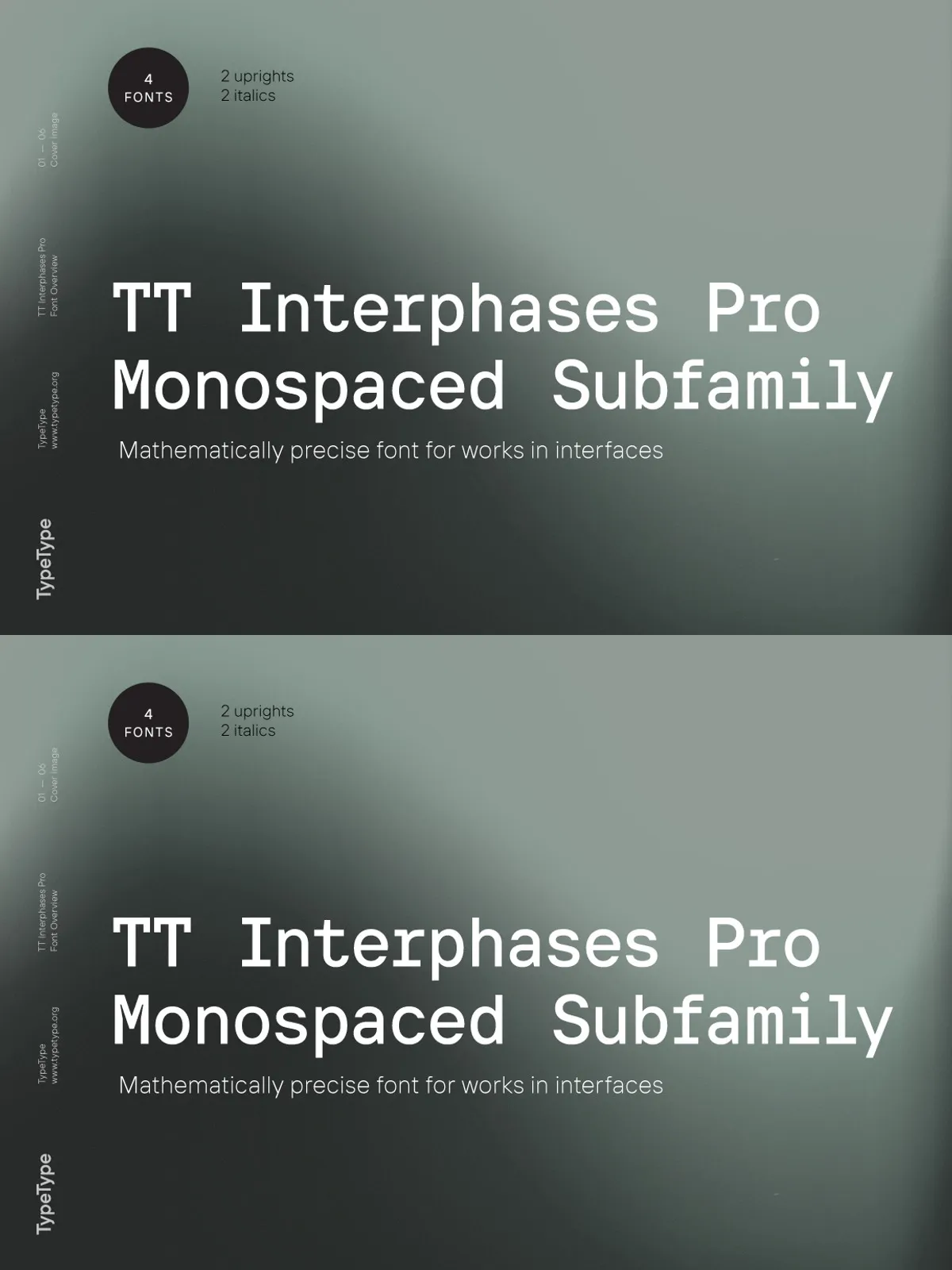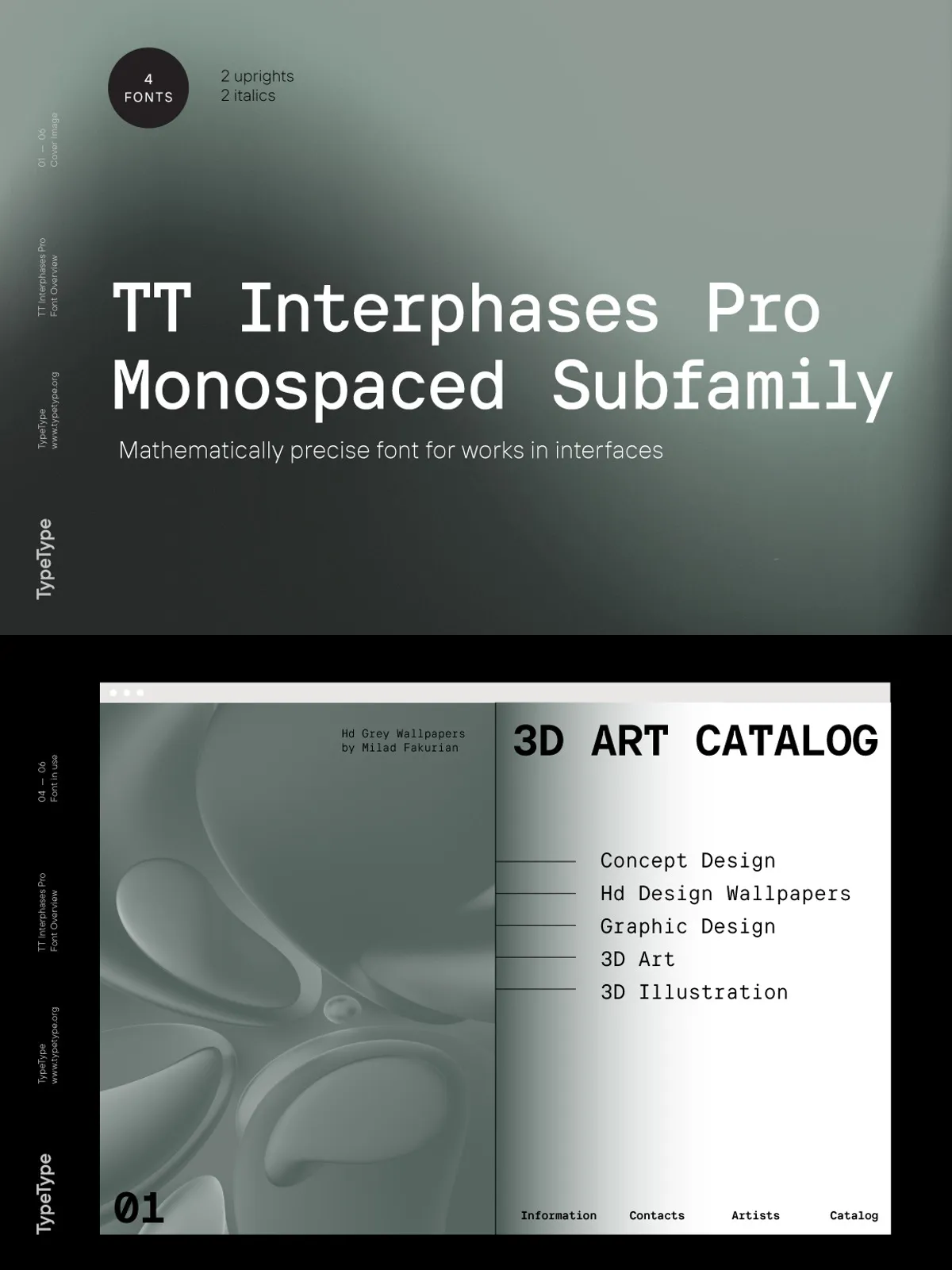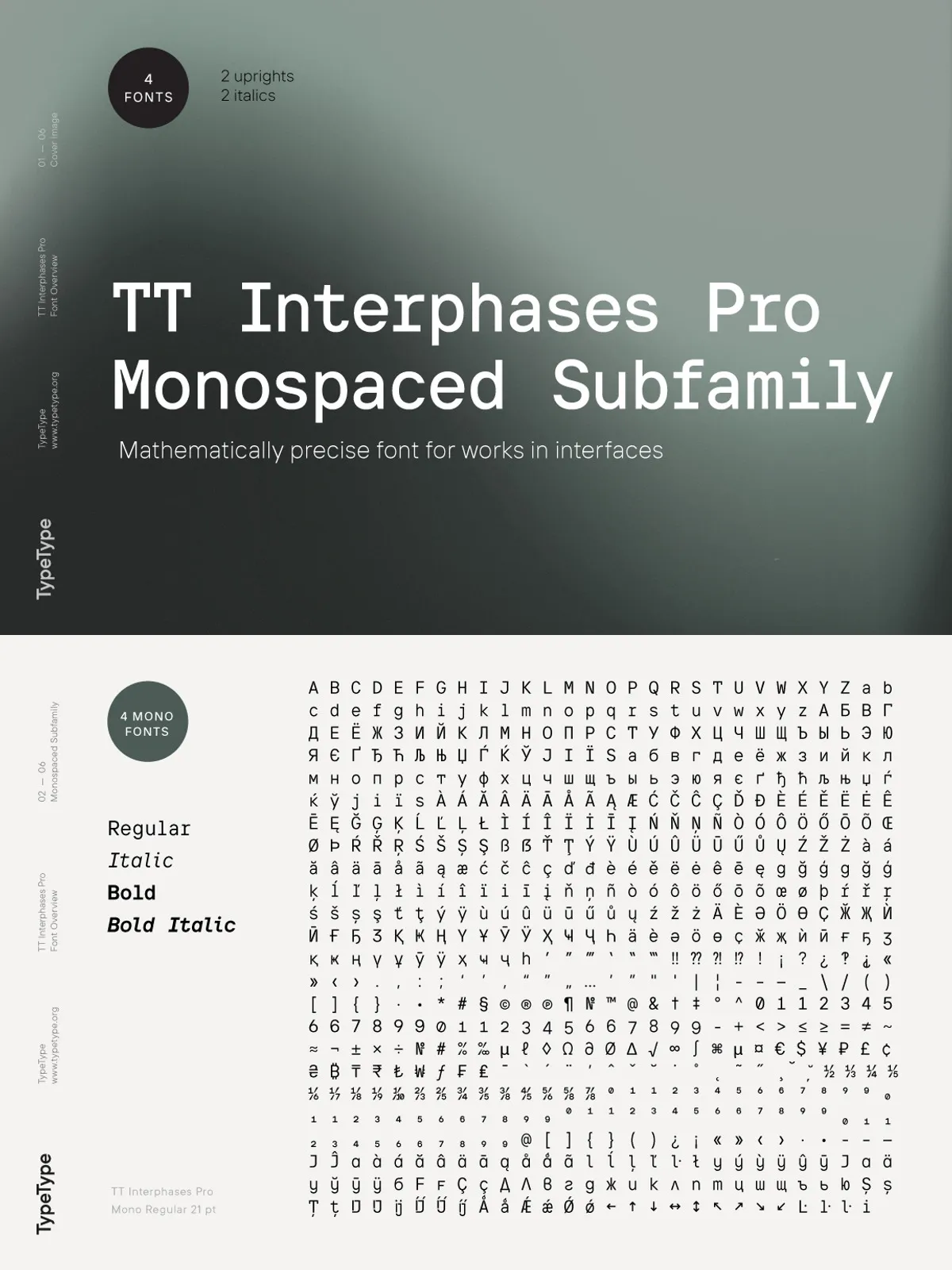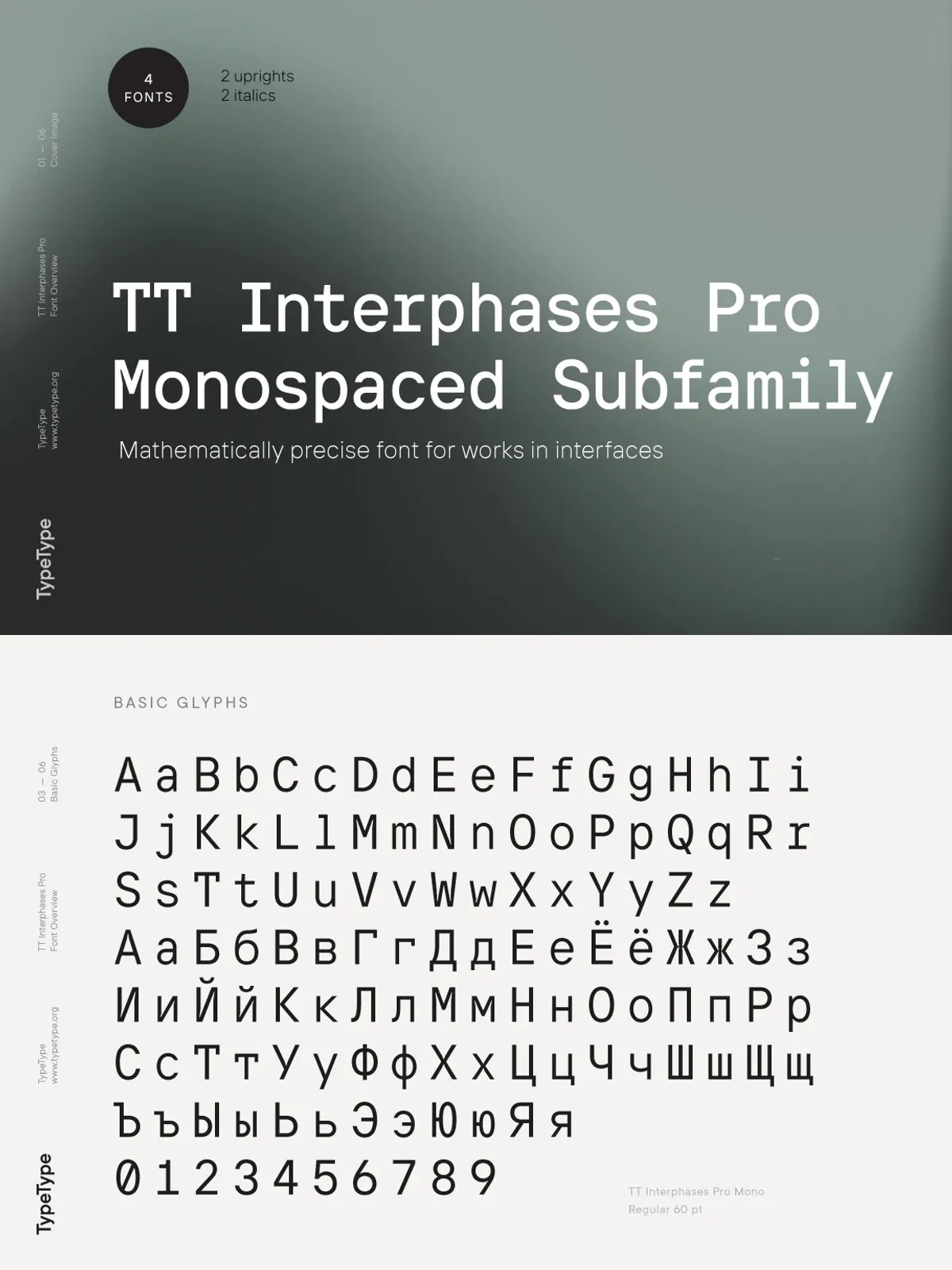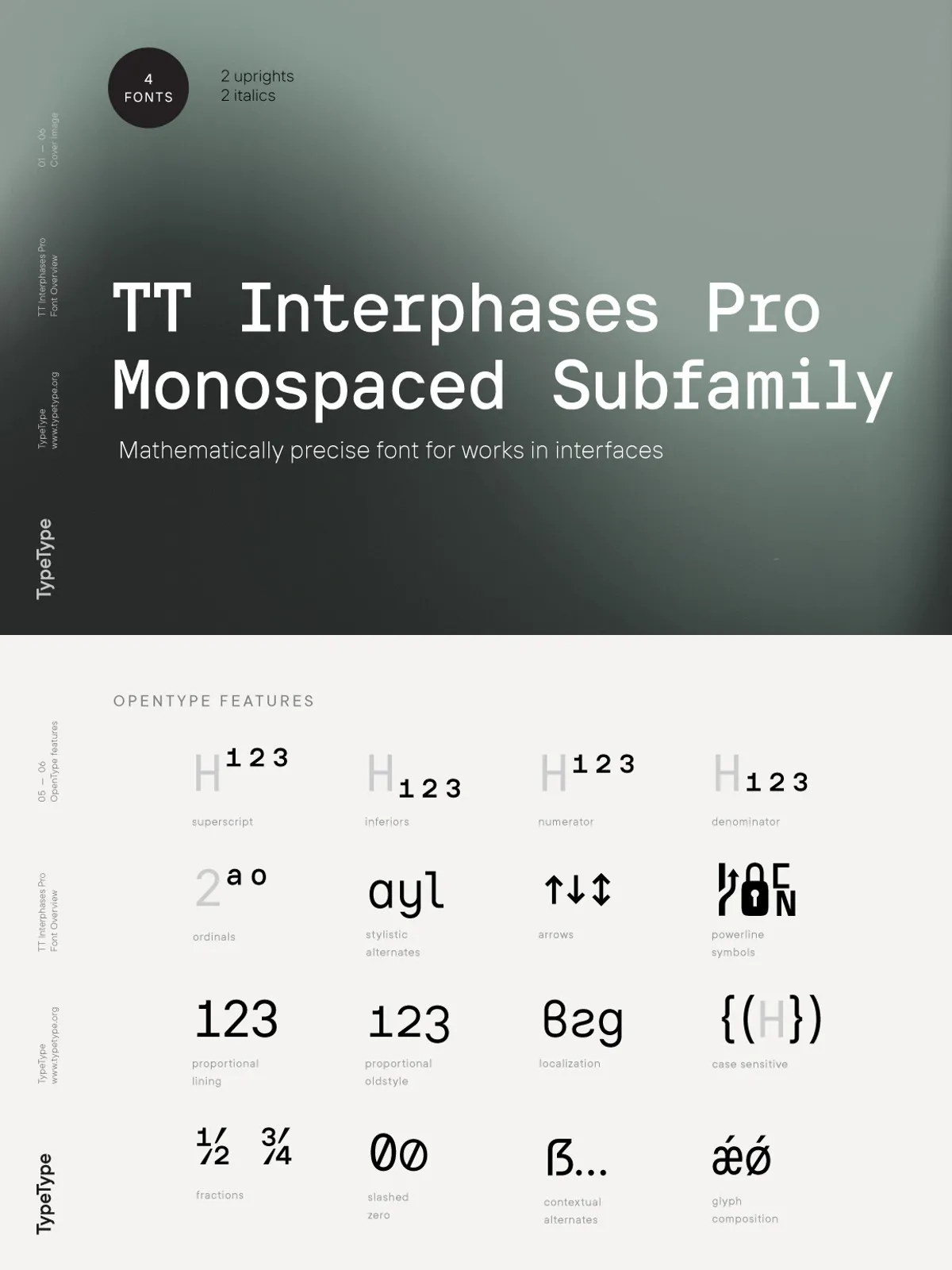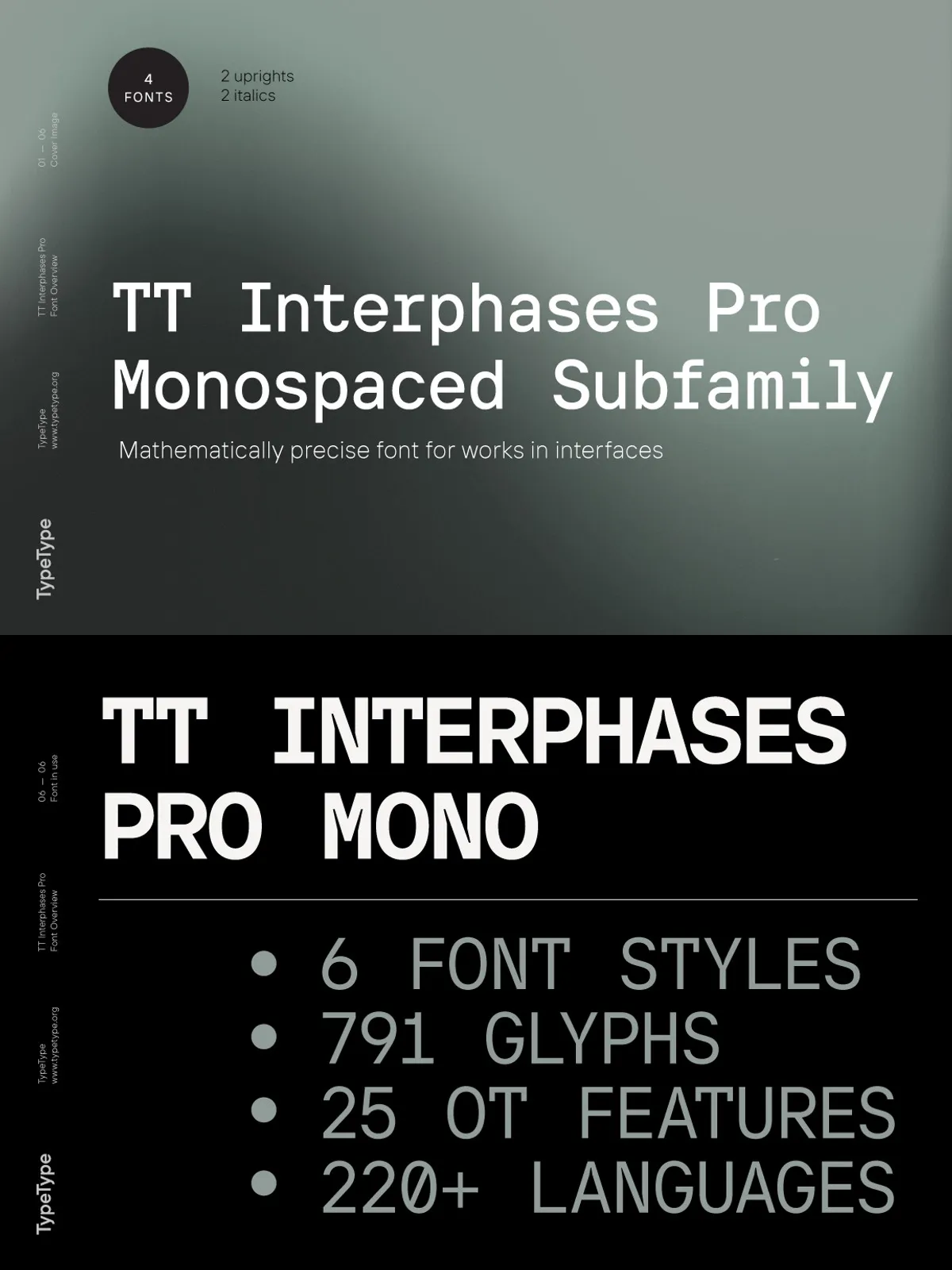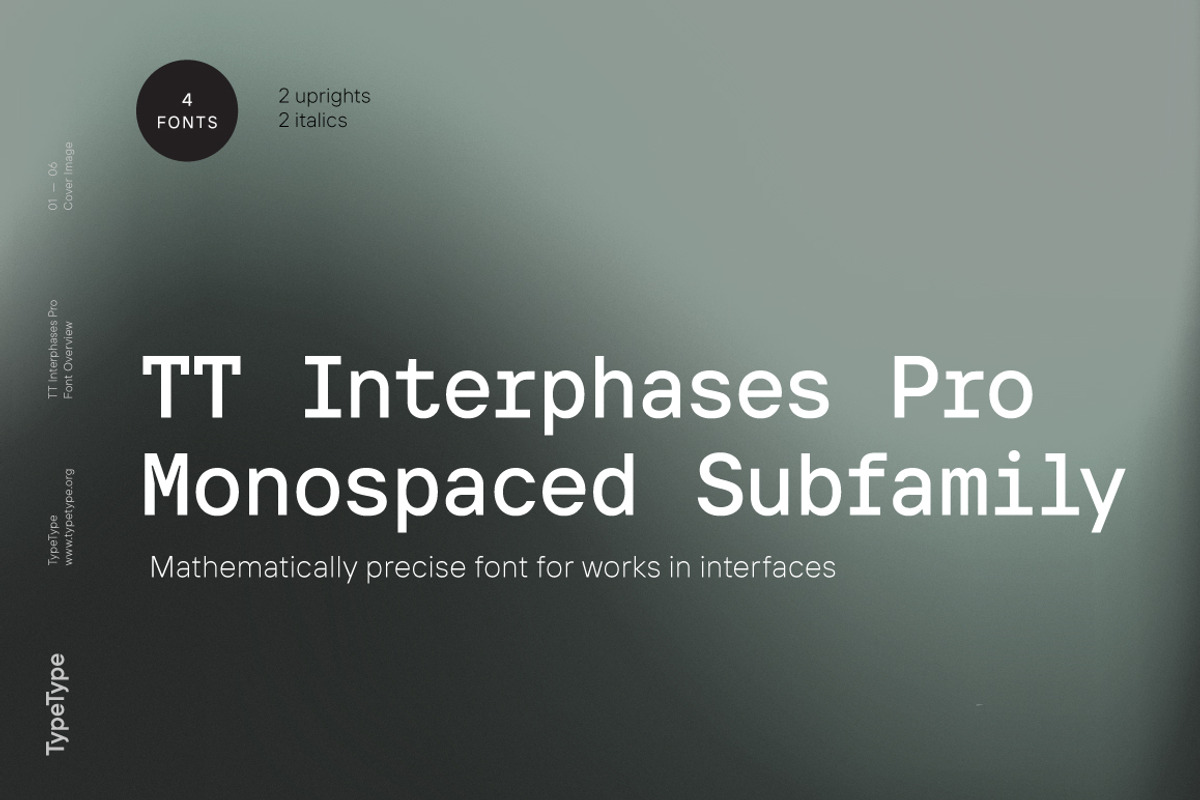
TT Interphases Pro Mono
TT Interphases Pro delivers a refined, professional typographic system built for modern digital design. This release expands the original family into a comprehensive toolkit that designers can rely on for clarity, scalability, and typographic control. Rebuilt from the ground up, the family balances neutral minimalism with precise detailing to perform across screens, print, and responsive environments.
Design & Refinement
Every glyph in TT Interphases Pro benefits from meticulous reworking: contours have been optimized, kerning pairs recalculated, and hinting redeveloped to ensure crisp rendering at small sizes. The result is a neutral, consistent voice that reads cleanly across UI components, long-form editorial text, and bold display headlines. Designers will appreciate the family’s balanced proportions and the predictable rhythm it brings to complex layouts.
Visual Character
TT Interphases Pro preserves the original’s clarity while improving optical balance. Strokes, terminals, and counters have been tuned to maintain legibility in dense interfaces and expressive layouts alike.
Expanded Styles & Variable Capabilities
This version introduces 18 new styles and an integrated variable font, bringing the total to 37 thoughtfully organized styles. The family now ships in two widths—Standard and Condensed—allowing tighter compositions and flexible hierarchy without sacrificing consistency.
Variable Font Axes
• Weight: Smooth control from Thin to Black.
• Width: Transition from Condensed to Normal for responsive needs.
• Slant: Adjustable from upright to oblique for nuanced emphasis.
The variable font supports fluid transitions across these axes, enabling animated typography, responsive scaling, and fine-grained tuning directly in the browser or design tools.
Professional OpenType Features
TT Interphases Pro equips designers with 24 advanced OpenType features for precise typographic work. These include tabular and proportional figures, numerators and denominators, currency forms, stylistic sets, and contextual alternates. These features guarantee consistent numerical alignment for data-heavy interfaces, while providing subtle refinements for editorial typography.
Feature Highlights
• Tabular figures for data tables and dashboards
• Numerators, denominators, and fraction support
• Stylistic alternates and ligatures for refined display use
• Enhanced currency glyphs and alignment options
Global Language Support
Built to support international projects, TT Interphases Pro includes glyph coverage for 212 languages. The comprehensive language set ensures consistent typography across localized interfaces, websites, and printed materials, removing the need for fallback fonts and preserving visual integrity across regions.
Subfamilies & Specialized Use
TT Interphases Pro contains two purpose-driven subfamilies:
• Standard Subfamily: Optimized for UI components, navigation systems, and long-form text with balanced proportions for screen readability.
• TT Interphases Pro Mono: A functional monospace variant ideal for code editors, terminal-style displays, and technical documentation. It ships with multiple weights and monospaced numerals to support precise alignment.
Use Cases
TT Interphases Pro suits a wide range of projects. Use it to:
• Build scalable design systems and component libraries.
• Design responsive web and mobile interfaces that need consistent behavior across breakpoints.
• Produce editorial layouts with precise numeric alignment and typographic hierarchy.
• Create brand systems that require neutral yet refined display typography.
• Implement animated or adaptive typography through variable font axes in interactive environments.
Key Benefits
• 37 styles across two widths for flexible typographic hierarchy.
• Variable font with weight, width, and slant axes for responsive control.
• 24 advanced OpenType features for professional typographic workflows.
• Support for 212 languages to enable global deployment without fallbacks.
• Mono subfamily designed for coding and technical interfaces.